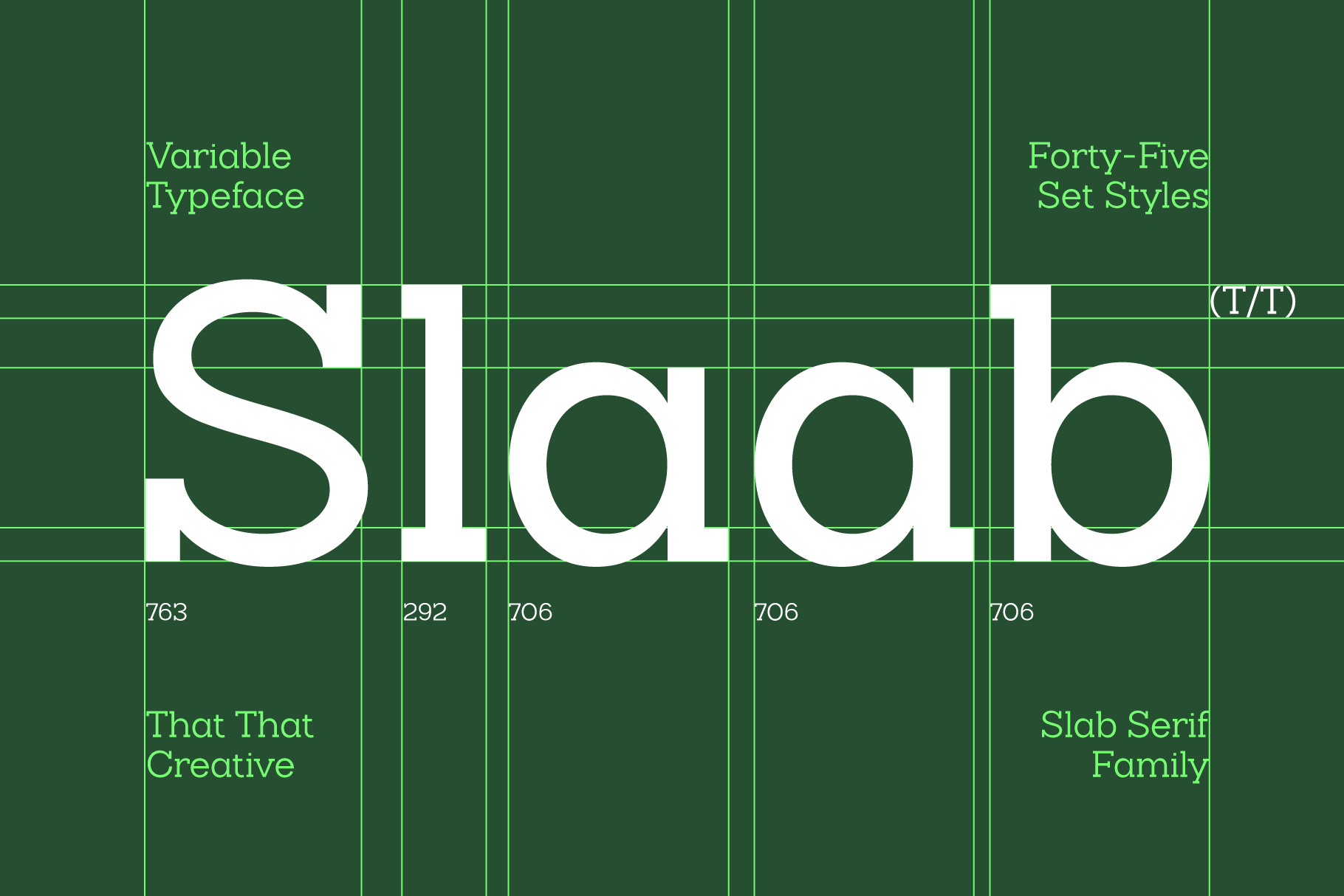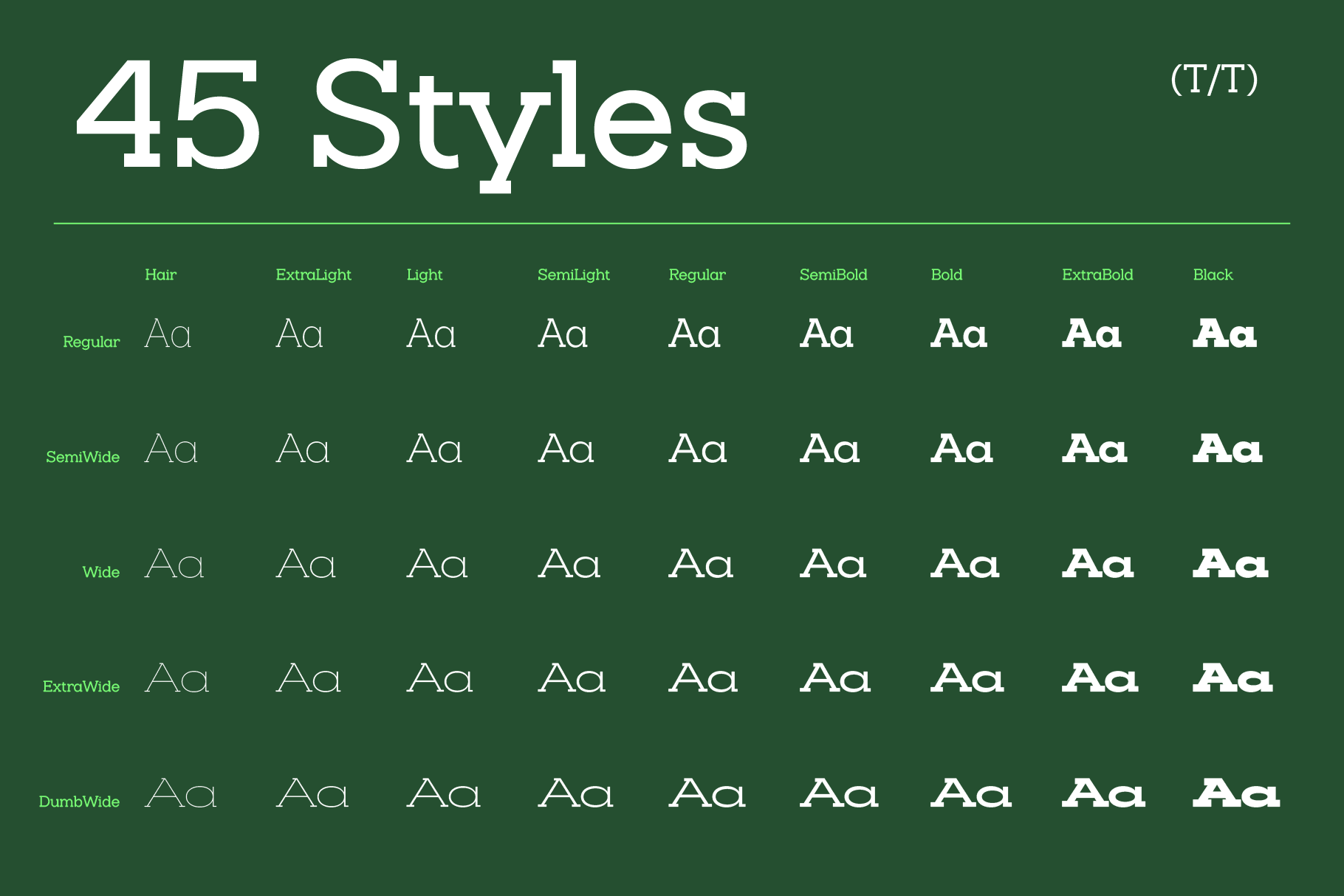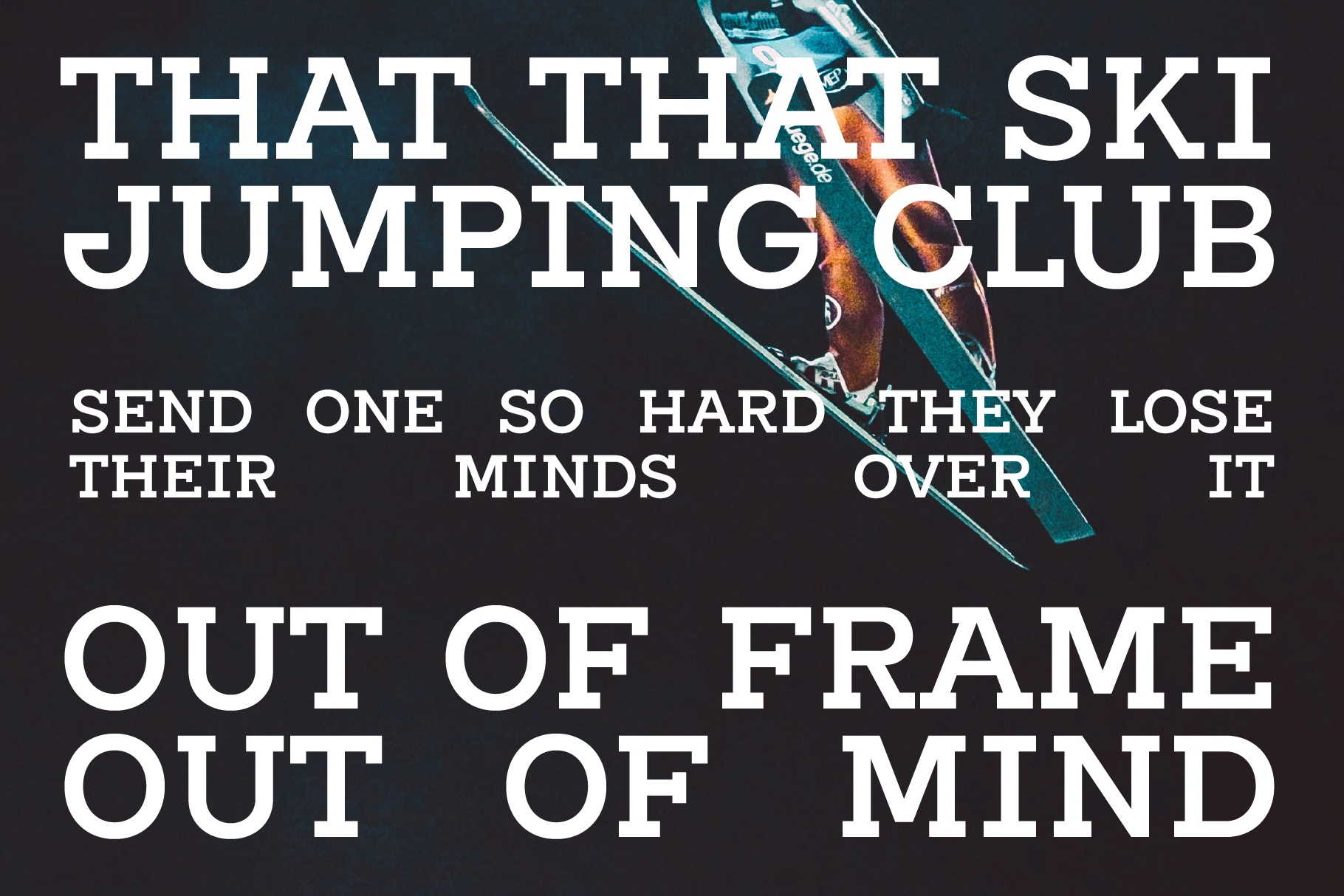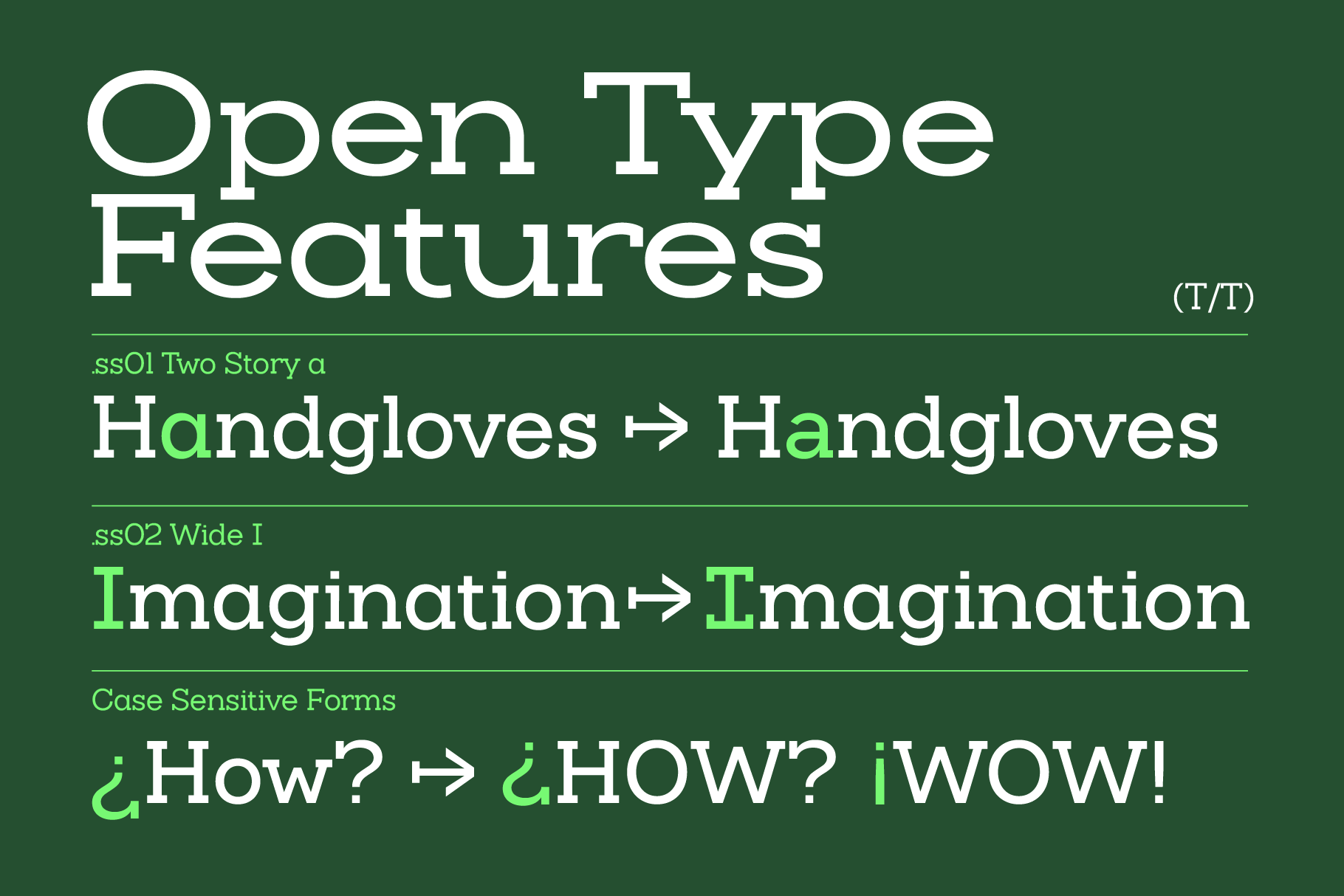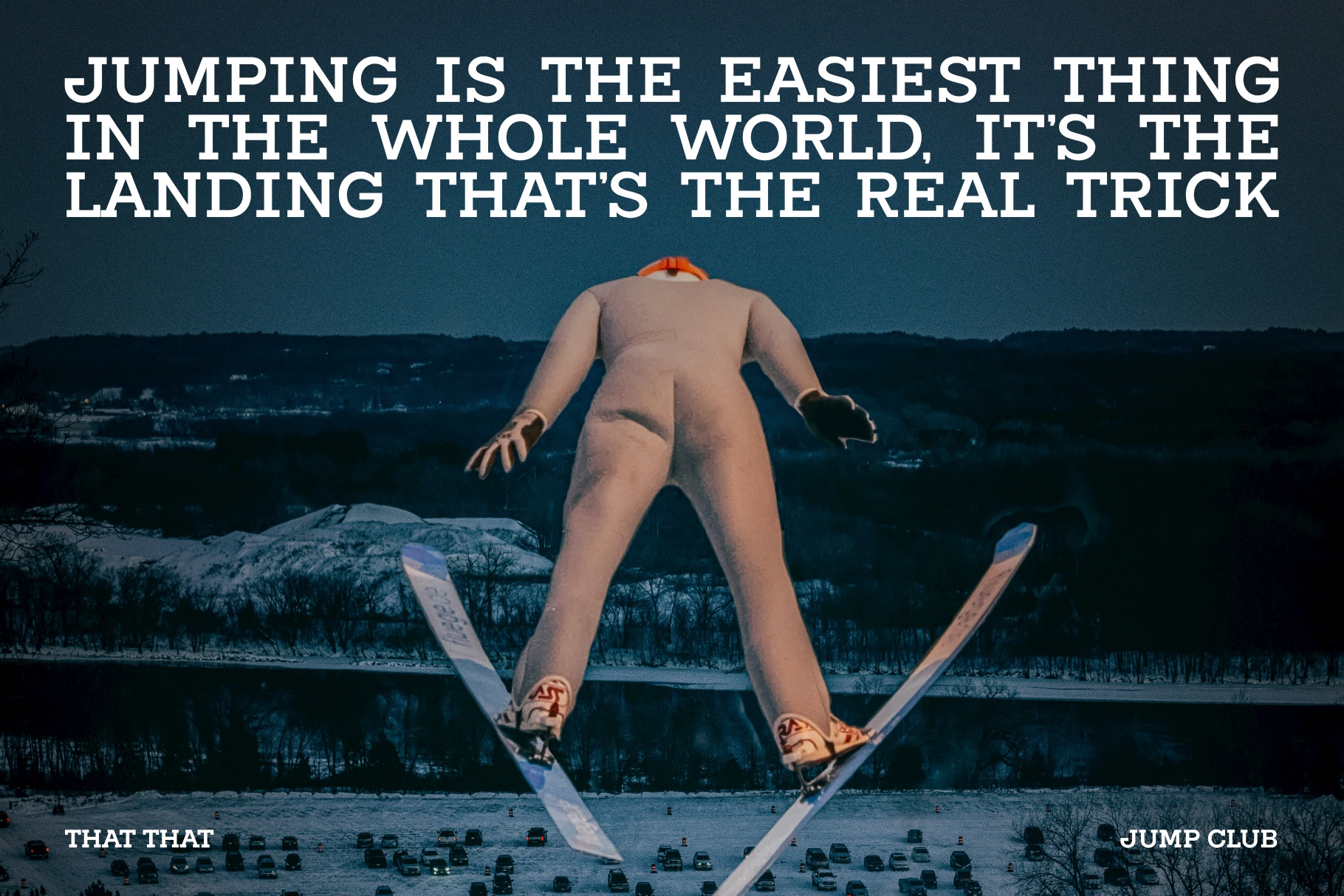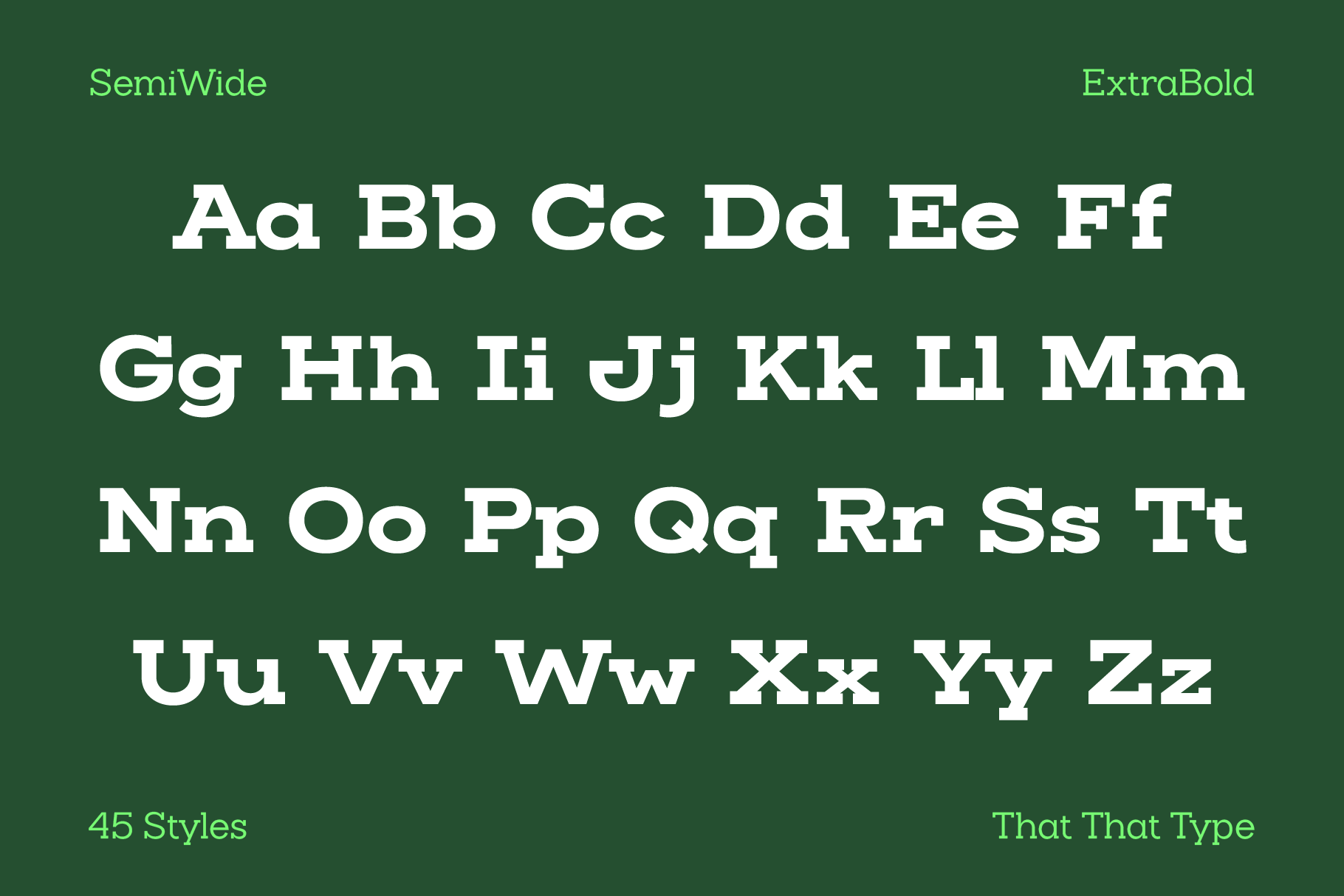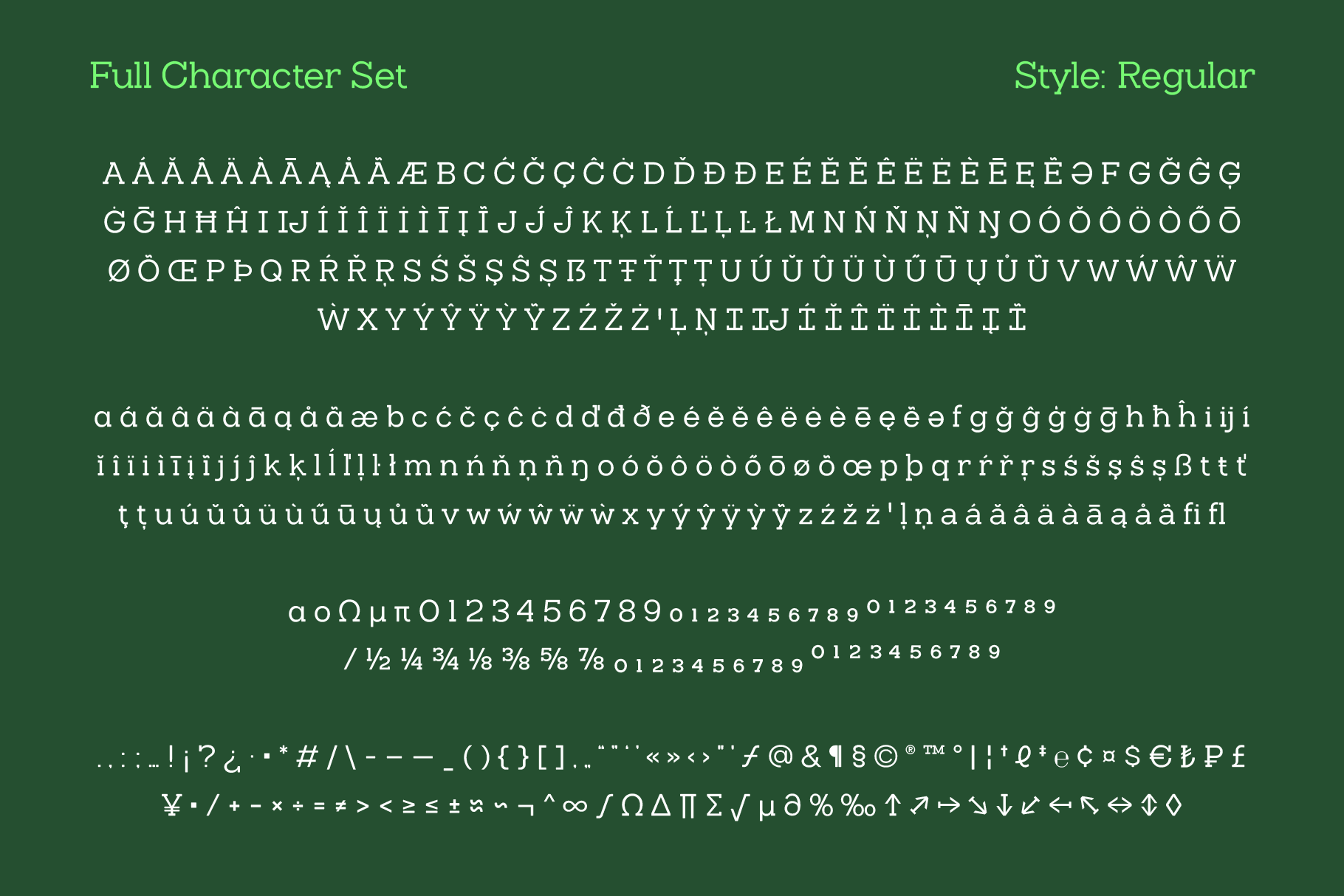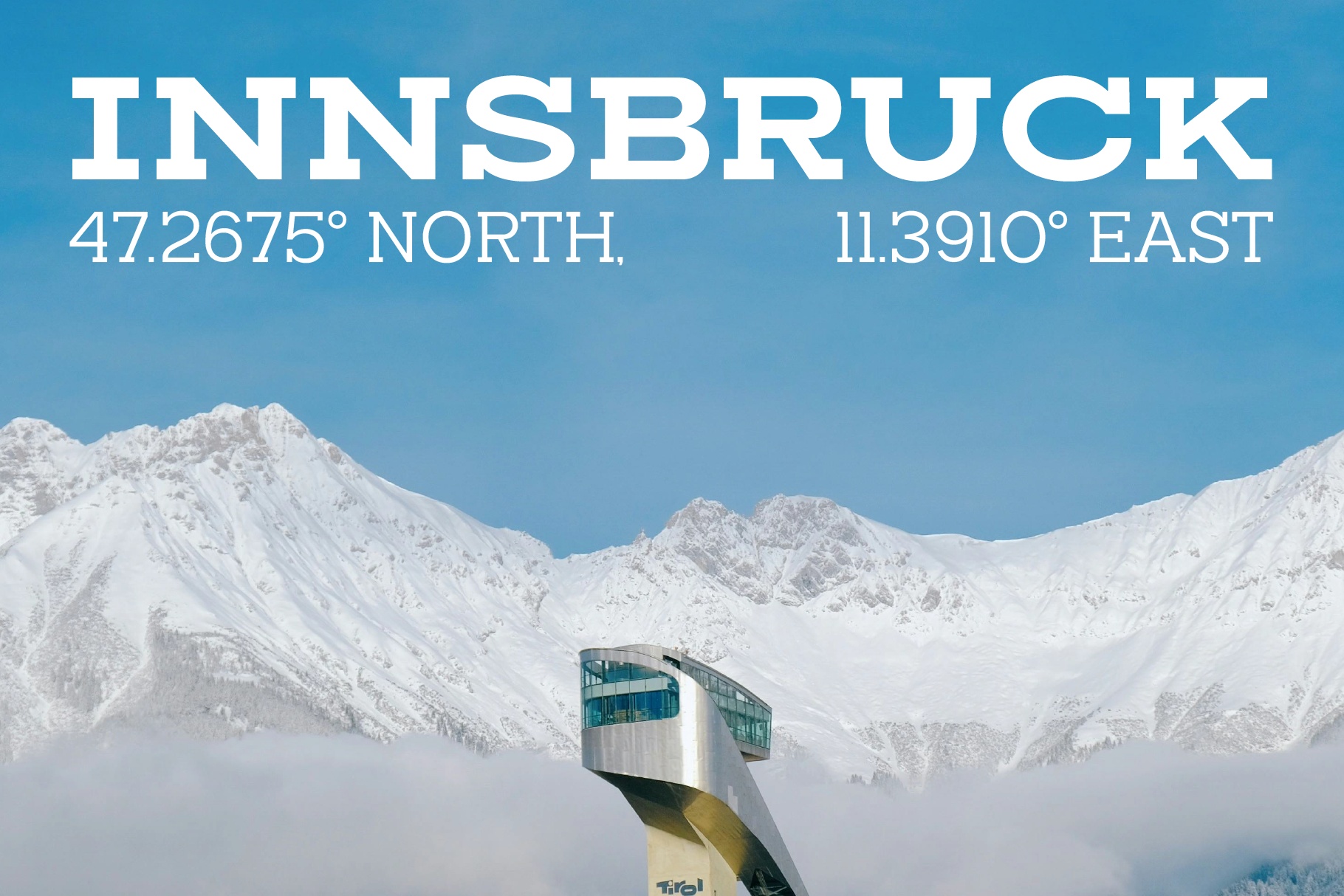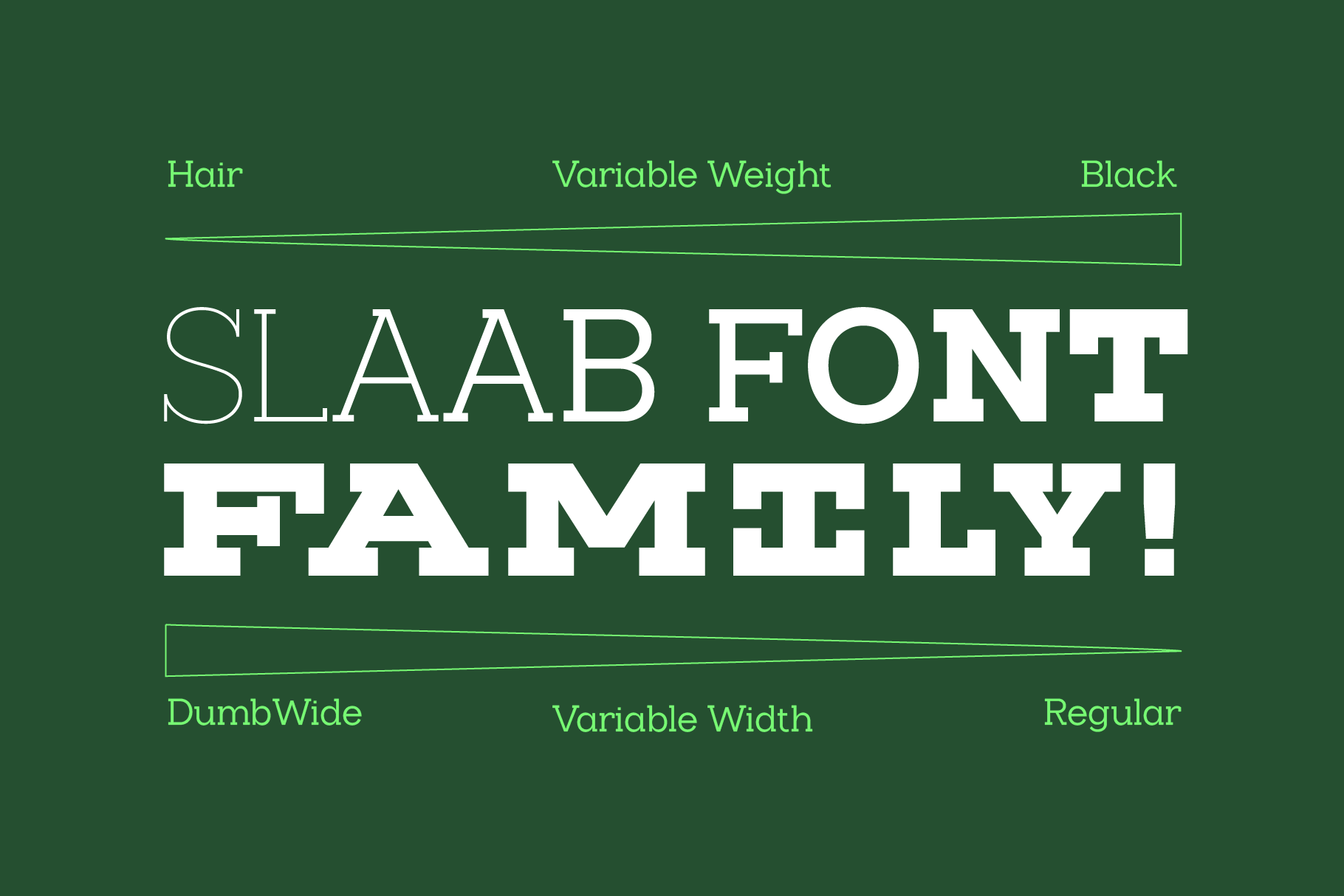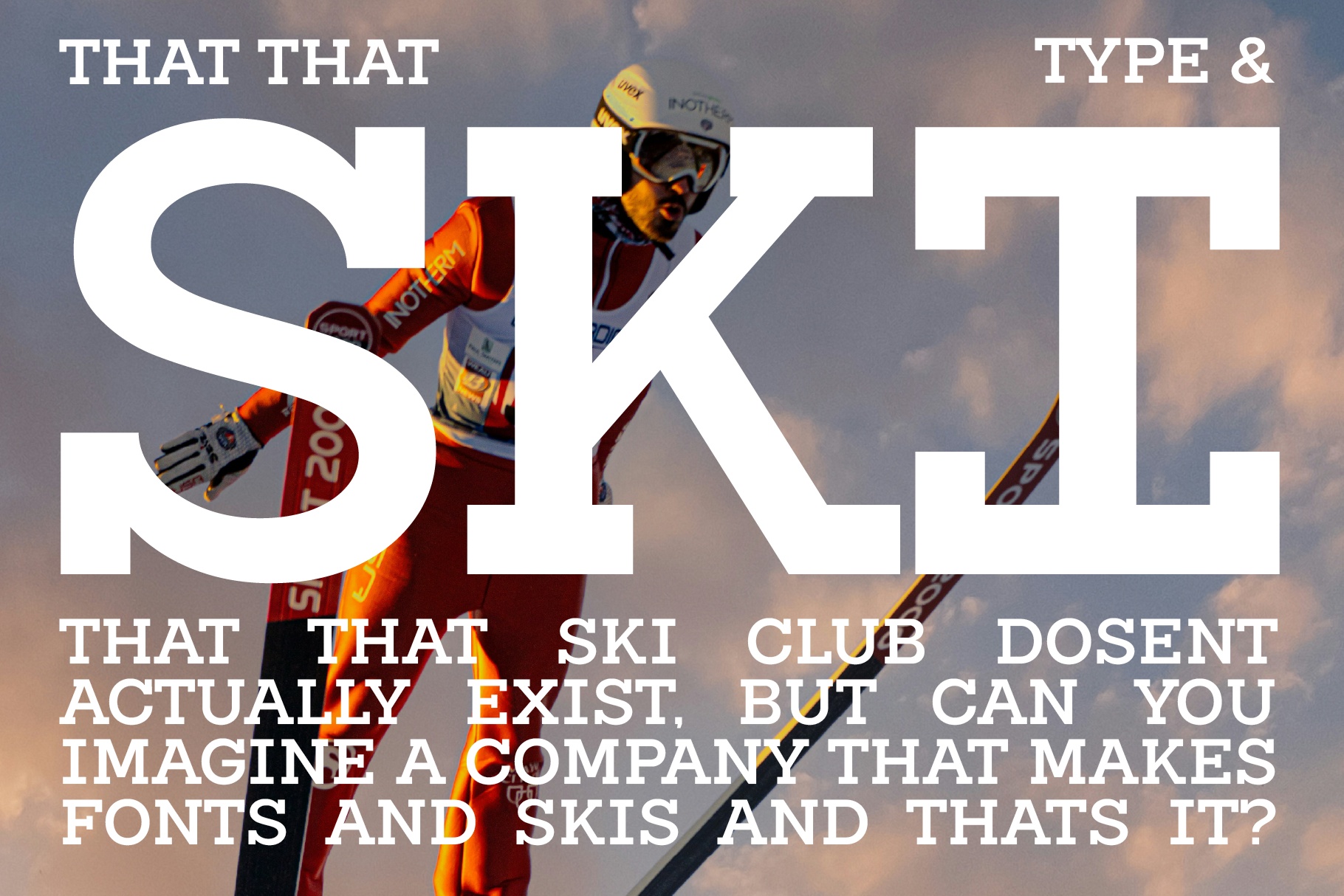
Slaab - Variable Slab Serif Font Family
Slaab runs from a hairline sketch to a near-black slab with barely any rounding left in the serifs, and the width axis stretches the same letterforms from a squeezed DumbWide to a full, stable Regular. This variable slab serif font keeps its Swiss-clean rhythm at every stop along the way, so a headline set in Black ExtraWide and body copy set in Light Regular still read as the same family.
Stylistic alternates swap in a single-story a and a wider I, case-sensitive punctuation lines up brackets and quotes with capitals, and fractions, ordinals, and superscript figures round out the technical set. Use it for branding systems, editorial layouts, poster headlines, packaging, and websites that need one file to cover a whole type hierarchy.
• Variable font with Weight (Hair–Black) and Width (DumbWide–Regular) axes, 45 styles total;
• Uppercase & Lowercase;
• Numerals, punctuation & symbols;
• Ligatures, contextual & stylistic alternates (ss01, ss02), case-sensitive punctuation, fractions, ordinals & superscript/subscript figures;